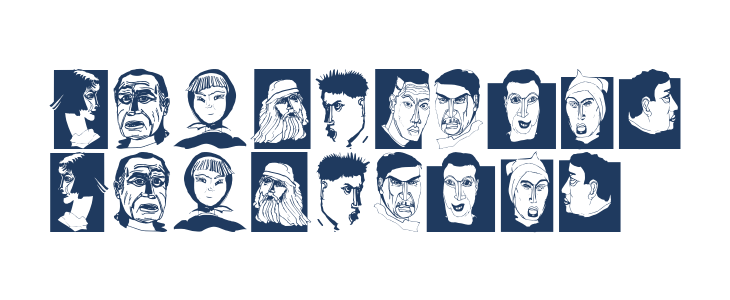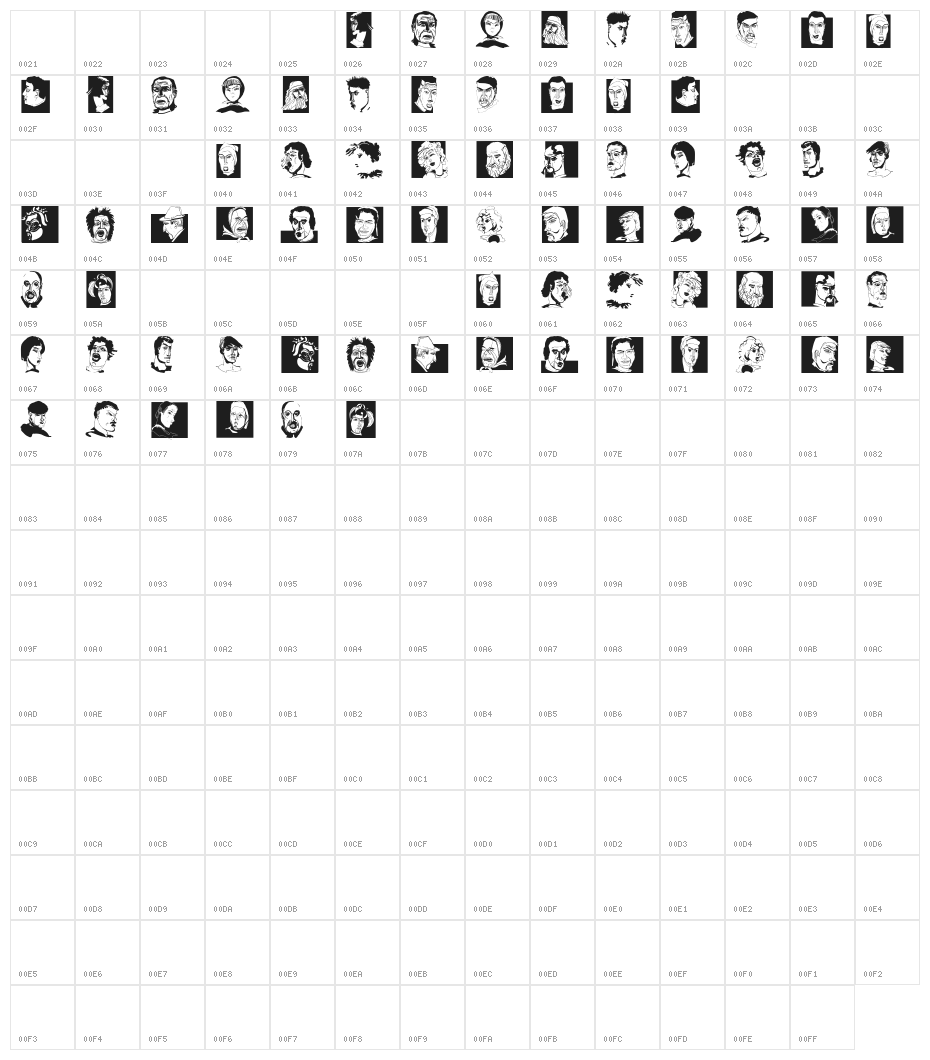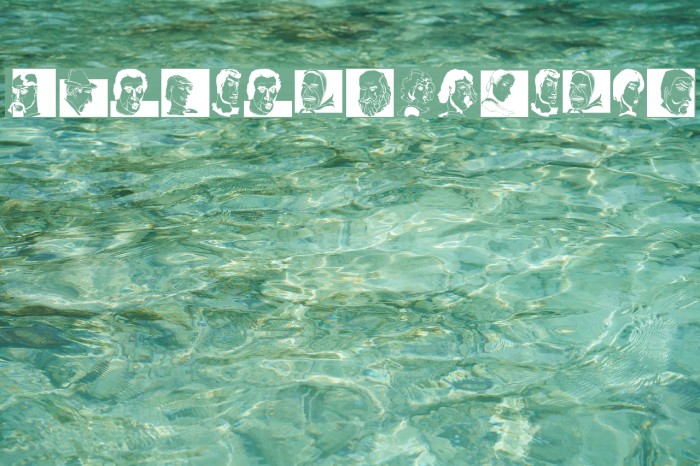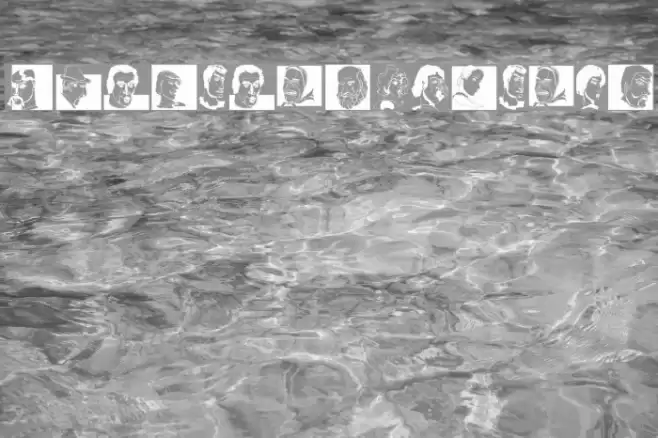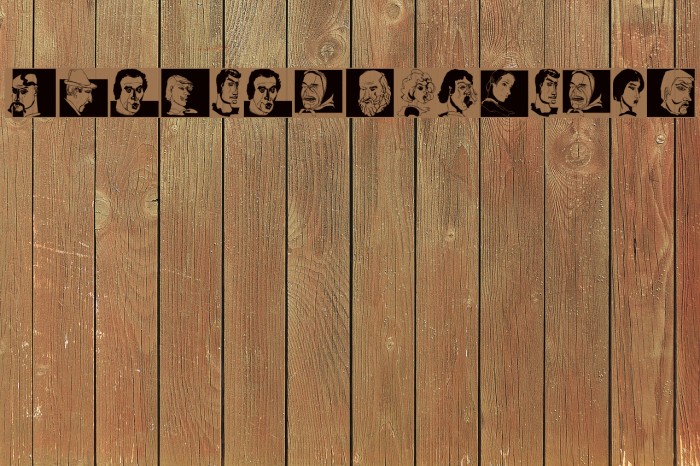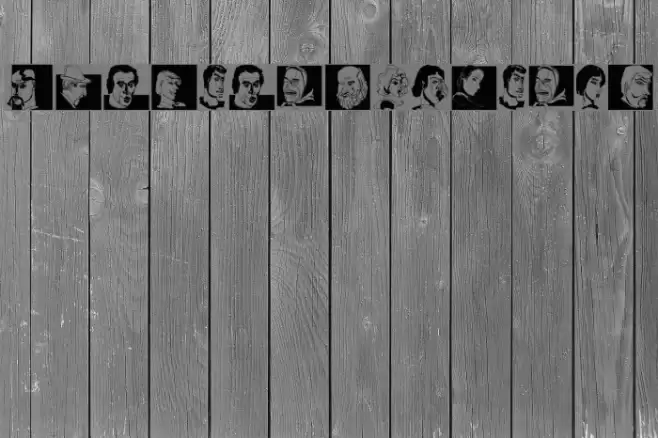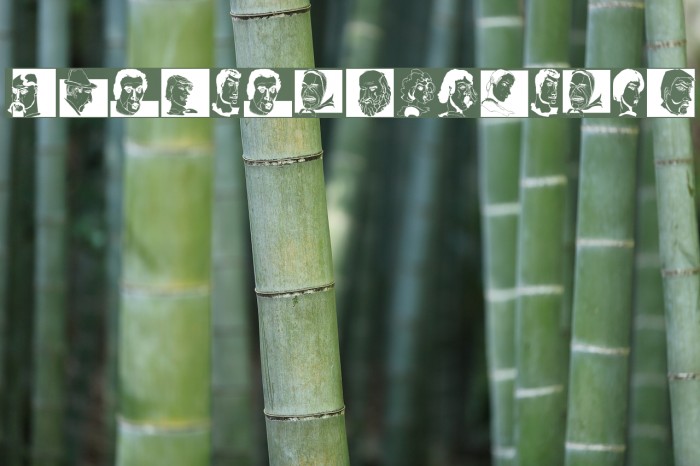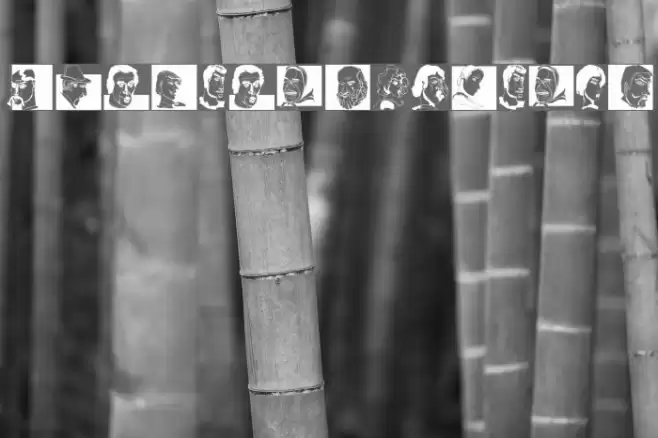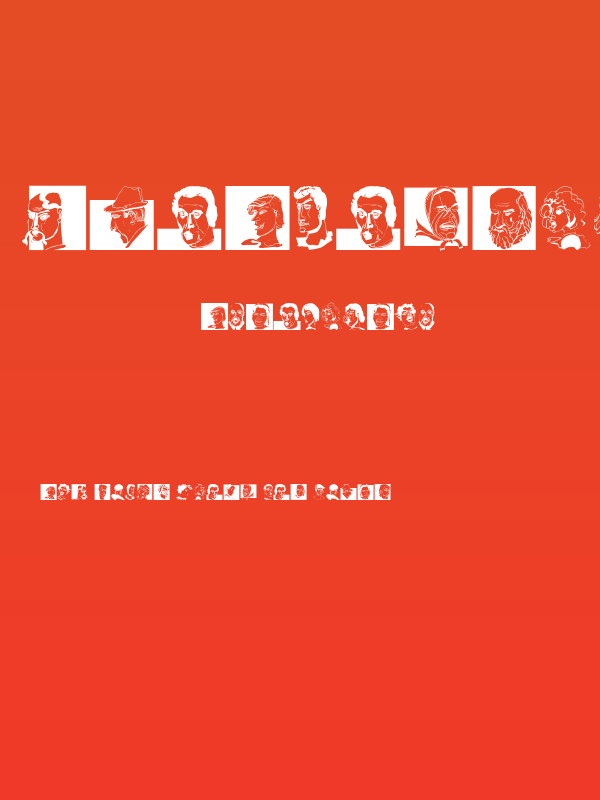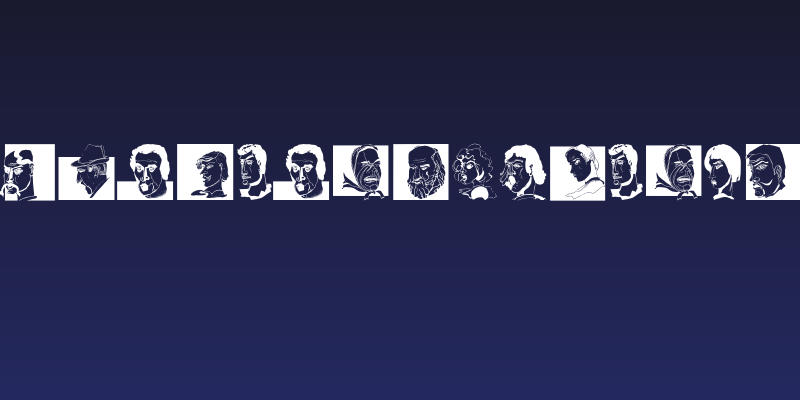
EmotionDrawings Font
EmotionDrawings Description
A decorative display font composed of expressive, hand-drawn faces showing a wide range of emotions, each character represented by a unique illustrated portrait. The style is bold, with high contrast between black and white areas, and the illustrations are detailed and varied in expression.
| Overall Style | Decorative, expressive, artistic |
| Use Case | Logos, headlines, posters, creative projects |
| Proposed Projects | Comics, graphic novels, poster art, creative branding, album covers, editorial illustrations. |